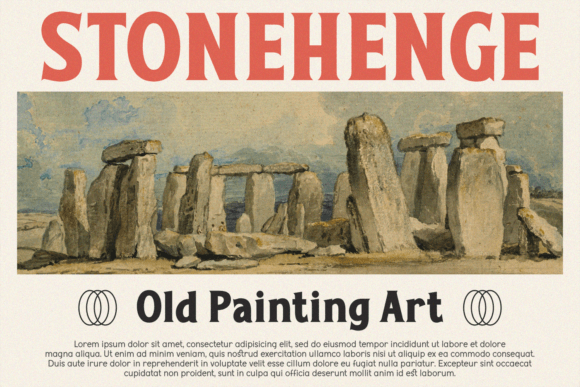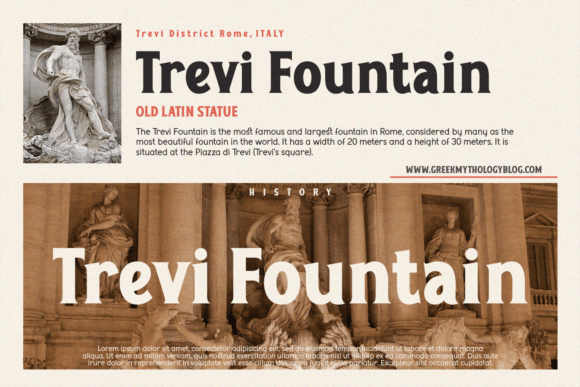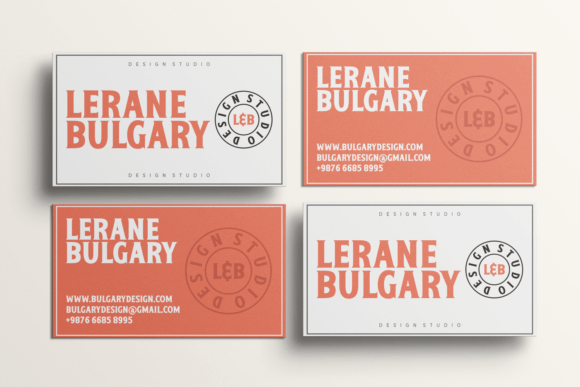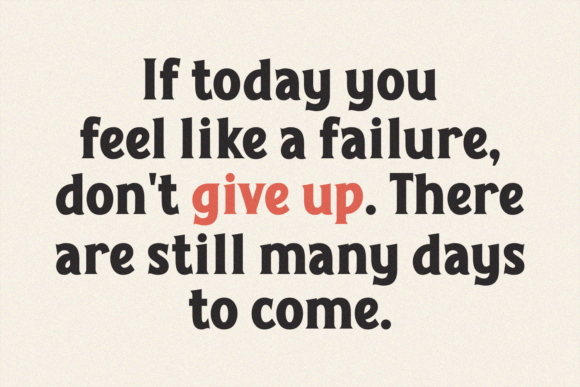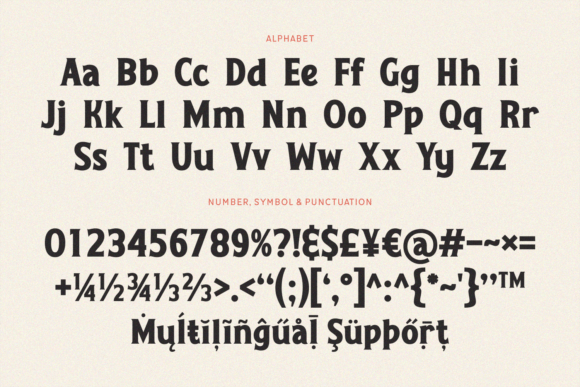
Introduction to Endless Kindness Font
Endless Kindness is a fabulous display font with a classy aesthetic.
Bold and powerful, this font has the potential to make any creation stand out It is perfect for posters, headlines, titles, banners, and many more.
Endless Kindness Font offers exceptional quality and versatility, making it a valuable addition to your design toolkit. Whether you’re creating for personal projects or commercial use, Endless Kindness Font delivers professional results.